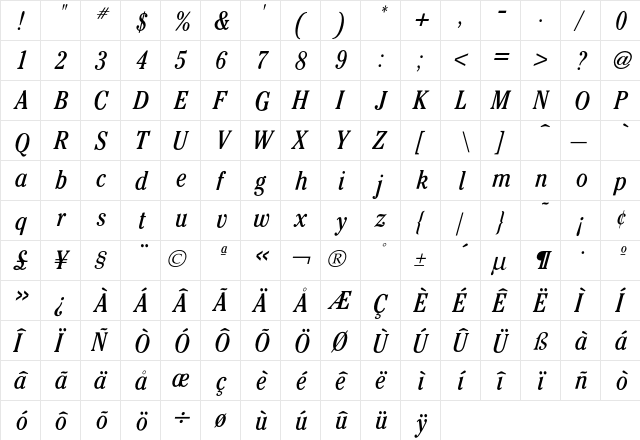
Cheltenham CondBookItalic Font Preview
Cheltenham CondBookItalic
Design Context for Cheltenham Typeface
Cheltenham is a composed and adaptable typeface that performs quietly and consistently across a wide range of design contexts. Its italic angle brings a sense of urgency and motion to the letterforms. The condensed width makes it efficient for tight spaces without sacrificing legibility.
Pro Tip: Use Cheltenham for emphasis, pull quotes, and subheadings where its slanted energy can add rhythm to the layout.